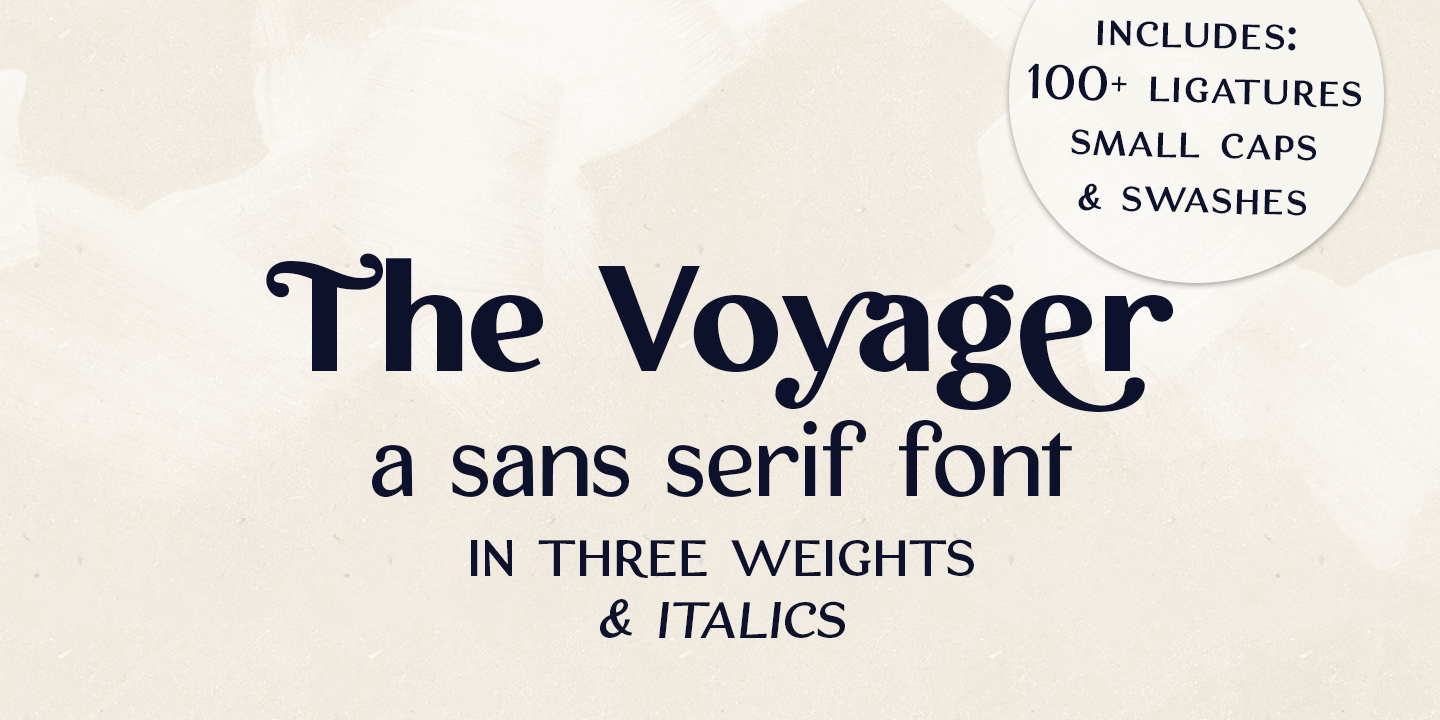
The Voyager Font demonstrates remarkable versatility across adventurous design applications including travel agency branding, exploration documentary titles, outdoor gear packaging, adventure tourism marketing, nautical-themed designs, expedition equipment labeling, wanderlust lifestyle brands, journey mapping graphics, exploration app interfaces, and discovery-focused educational materials. This bold typeface seamlessly combines exploratory spirit with navigational precision, making it an invaluable resource for designers working on projects that inspire wanderlust, celebrate discovery, and capture the essence of human exploration.
What makes The Voyager Font particularly exciting is its masterful embodiment of the explorer's spirit through strong, purposeful letterforms that seem to chart new territories with every word, evoking the courage and determination of history's greatest voyagers. The font features robust, confident characters with subtle nautical influences and compass-inspired details that reflect the precision required for successful navigation and exploration. Its adventurous design incorporates elements that suggest movement, direction, and the endless horizon that calls to every traveler's heart. The typeface's ability to convey both reliability and excitement makes it perfect for brands seeking to inspire exploration while maintaining the trustworthiness essential for adventure-related services. Each character has been carefully engineered to maximize inspirational impact while ensuring excellent readability across expedition materials, from detailed maps to large-scale outdoor signage.
The Voyager Font family encompasses comprehensive variations including Light, Regular, Bold, and Black weights, each maintaining the core exploratory aesthetic while offering different levels of adventurous intensity. The family also features condensed versions for space-efficient travel layouts and extended variants for maximum impact in headline applications. Special expedition cuts may include weathered versions that capture the wear of long journeys, compass-oriented styles, and nautical variants that amplify the font's maritime character for ocean exploration and sailing-themed applications.
Adventure professionals consistently choose The Voyager Font Free Download for projects requiring authentic exploration appeal and inspirational travel communication. This exceptional typeface has gained recognition in the travel industry for its ability to instantly evoke wanderlust and the spirit of discovery through expertly crafted adventure typography. The font's specialized OpenType features include directional alternates, exploration-themed ligatures, and navigation symbols that support comprehensive travel branding and adventure communication needs.
Whether you're developing travel company identities, creating outdoor adventure marketing, designing exploration equipment graphics, or crafting wanderlust-inspiring content, The Voyager Font delivers outstanding results. Its adventurous aesthetic makes it particularly appealing to travel agencies, outdoor equipment manufacturers, adventure tour operators, exploration documentarians, and lifestyle brands seeking to communicate discovery, courage, and the irresistible call of the unknown through their visual identity.
The font's technical excellence ensures optimal performance across all adventure applications while preserving its exploratory character. It includes comprehensive character encoding that supports international travel markets, making it suitable for global adventure brands and multilingual exploration projects. The careful optimization guarantees consistent rendering across various adventure media, maintaining the font's inspirational qualities whether displayed on digital travel platforms or printed on weather-resistant expedition materials.
Professional designers value The Voyager Font's ability to convey exploration and adventure while maintaining commercial reliability and brand effectiveness. Its bold presence creates immediate associations with discovery and courage while remaining highly functional for comprehensive travel branding systems. The font's voyager-inspired design helps organizations establish credibility in adventure markets while connecting with audiences who dream of exploration, value authentic experiences, and seek to discover the extraordinary in both distant lands and everyday journeys.